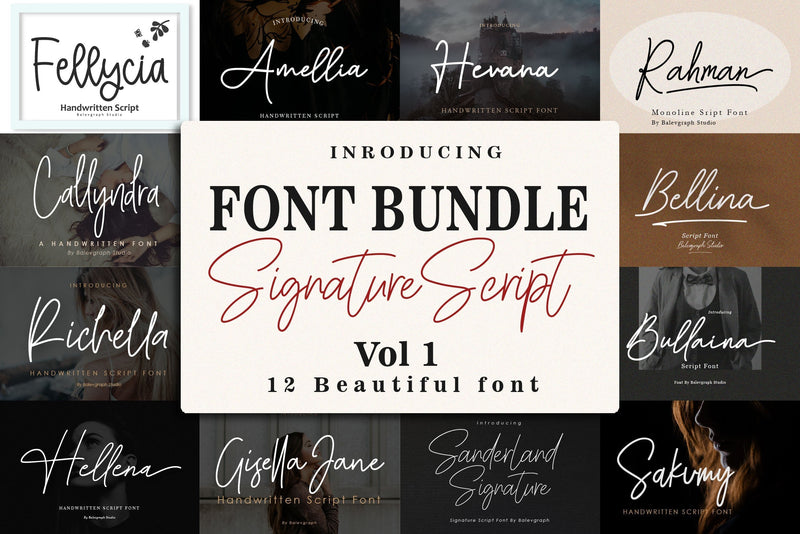
Font Bundle - Handwritten Signature Script Vol 1
Handwritten Signature Script Font Bundle Vol 1 includes 12 fonts.
The bundle comes with many opentype features such as Alternates, Ligature, Title and Ending Swash, PUA Encode and also support multilingual.
This bundle is perfect for logos, watermarks on photography, signatures, branding, advertisement, quotes, invitations, stationery, wedding design, album covers, business cards, clothing, magazines, posters, and more!